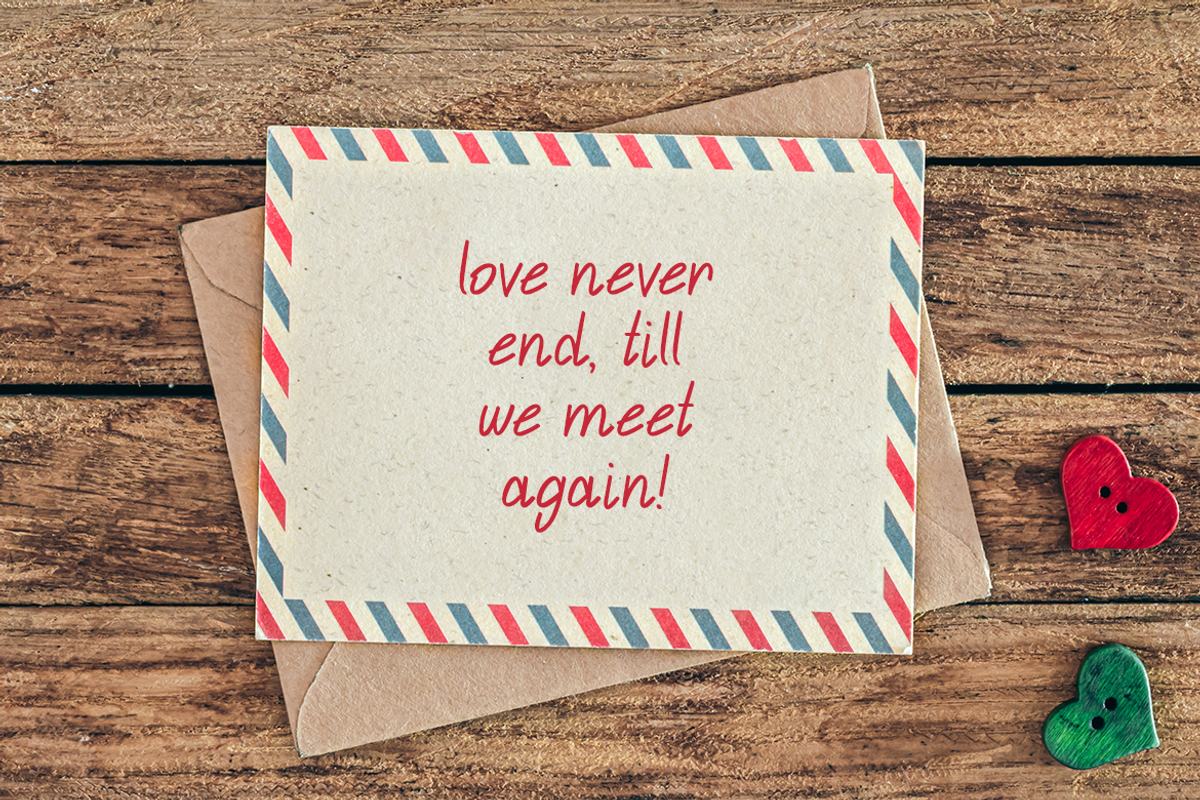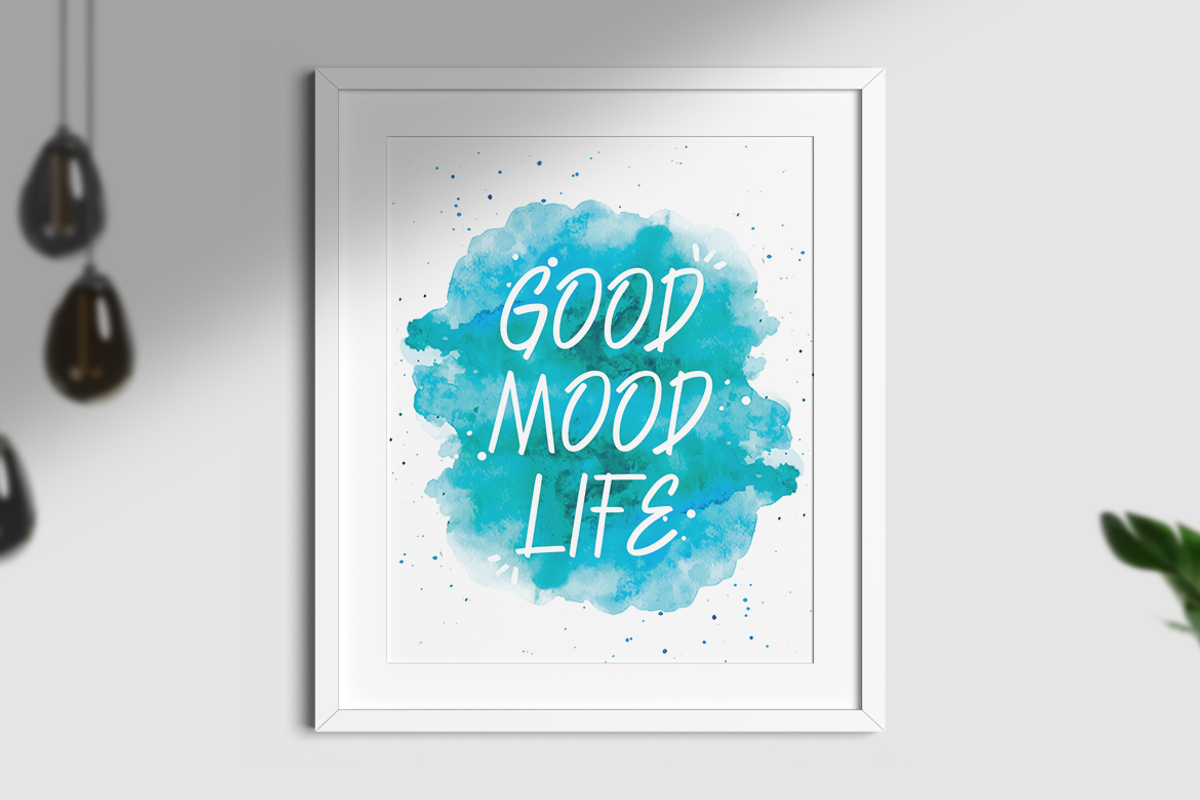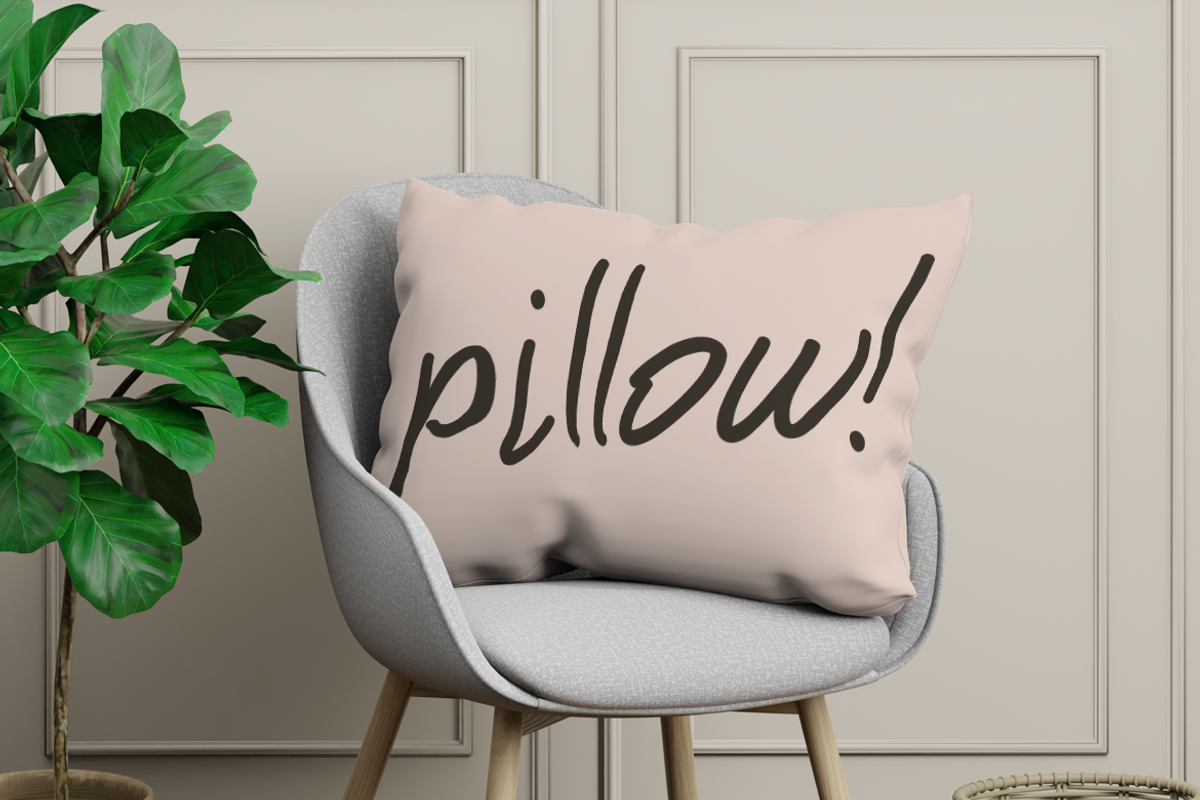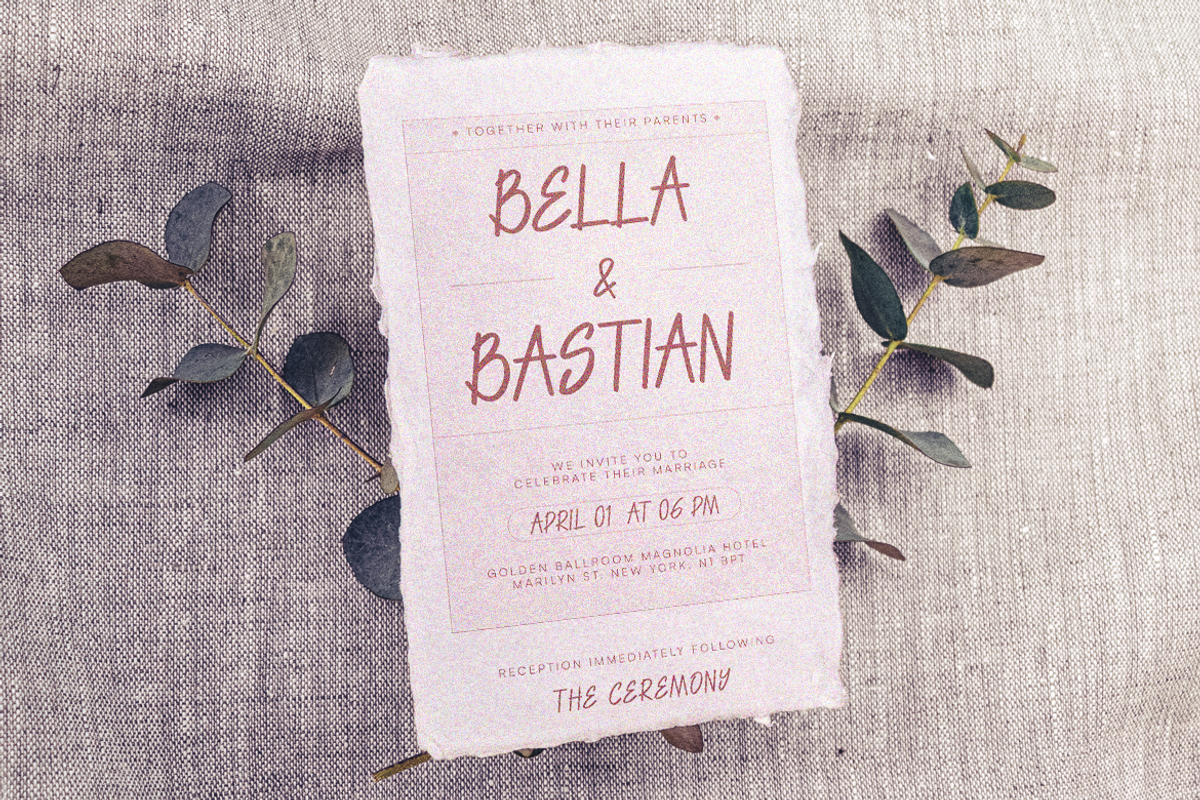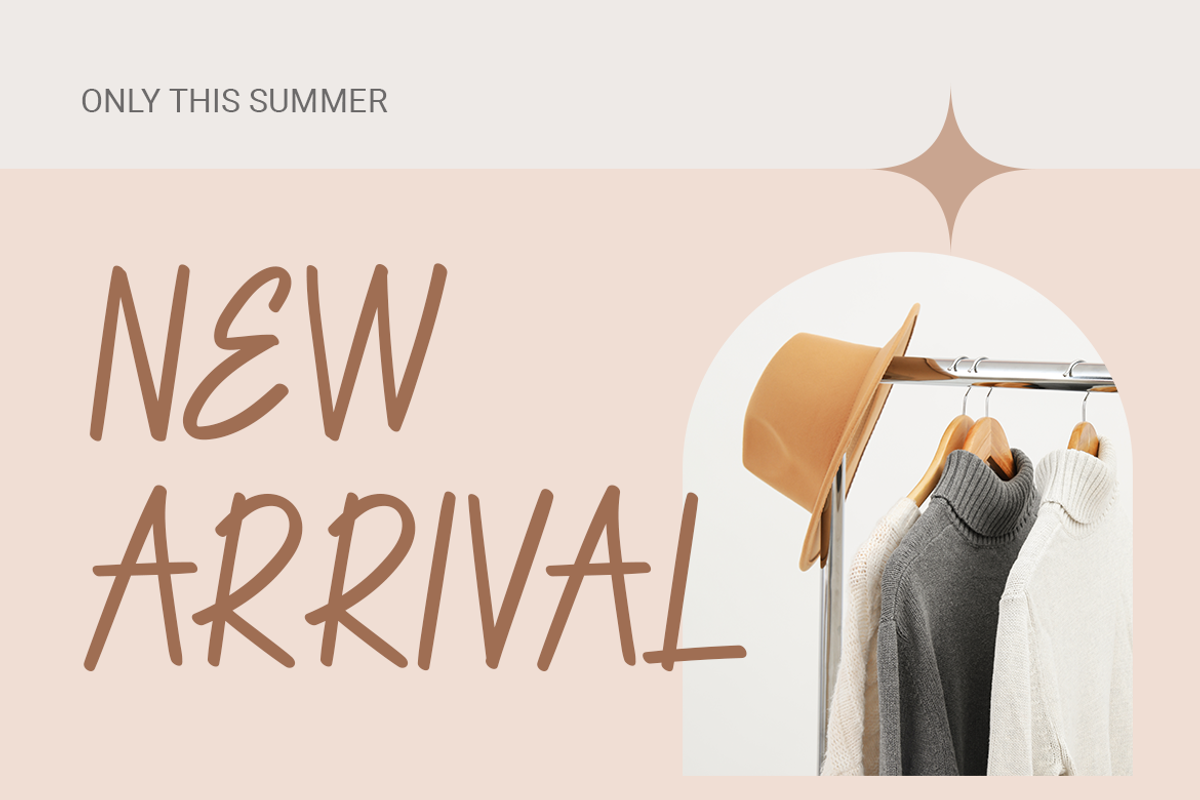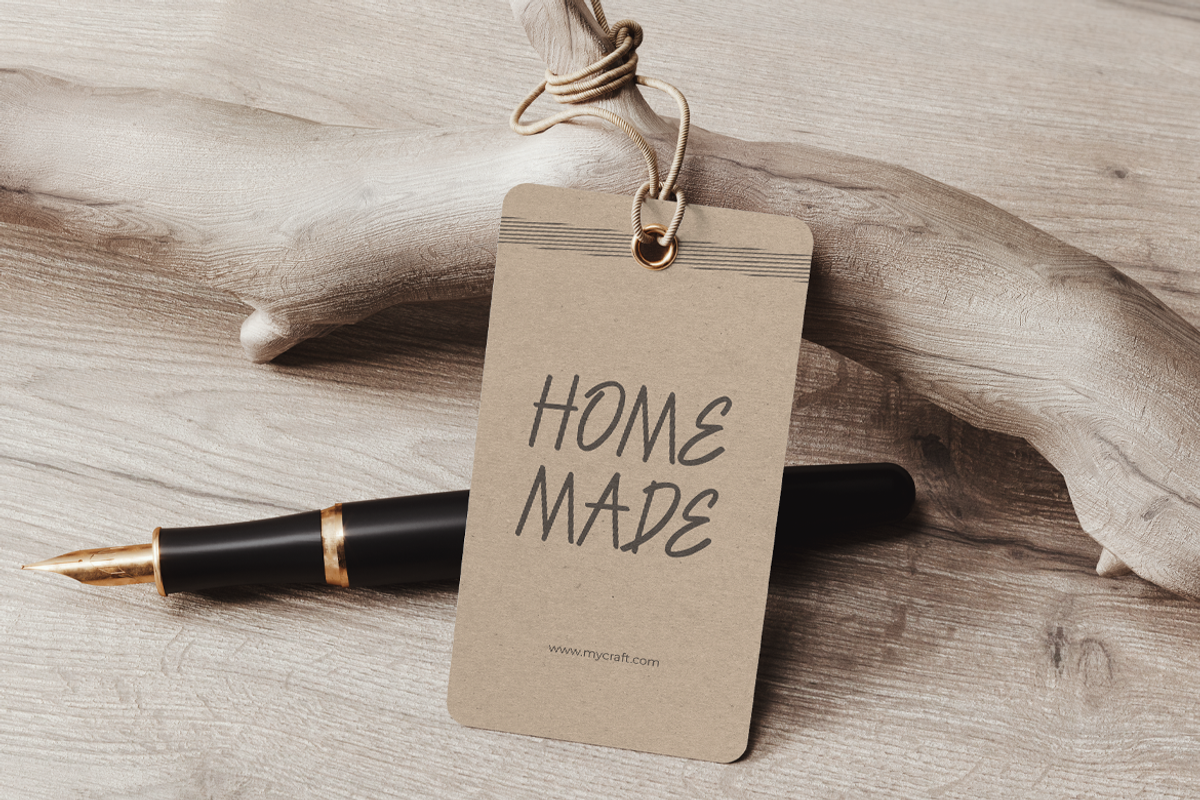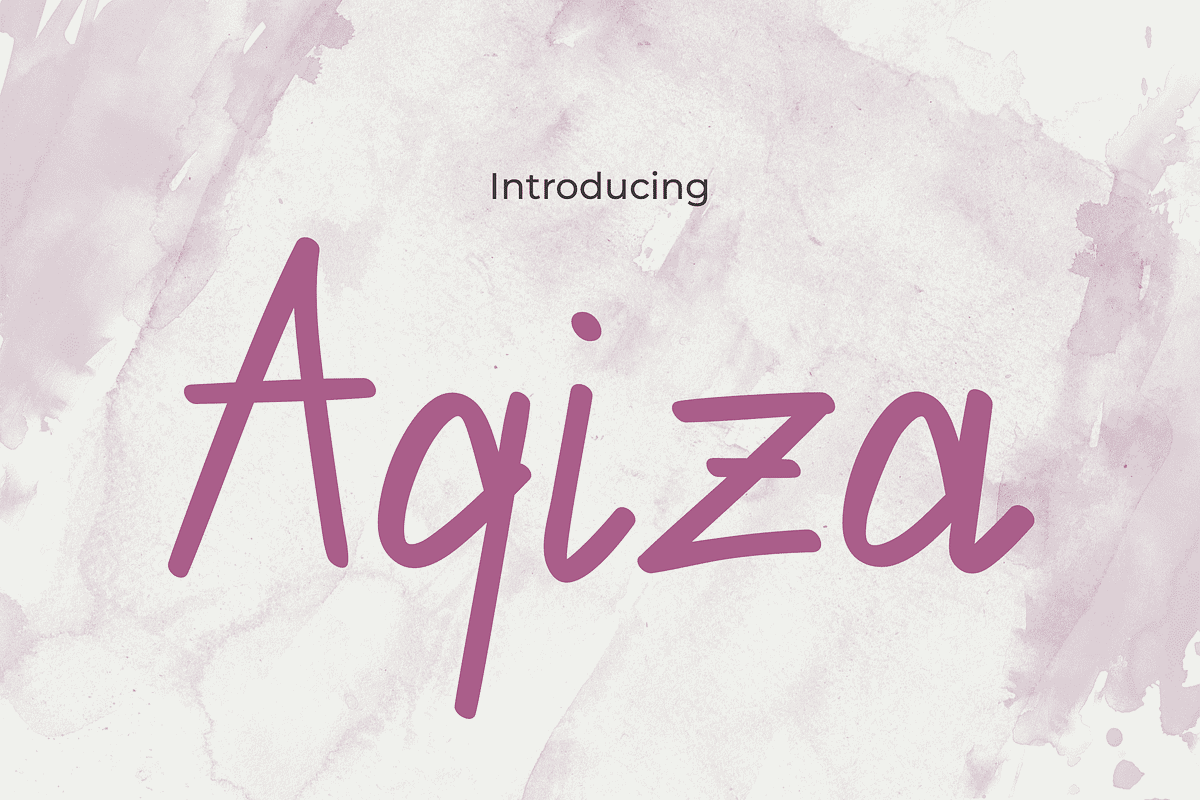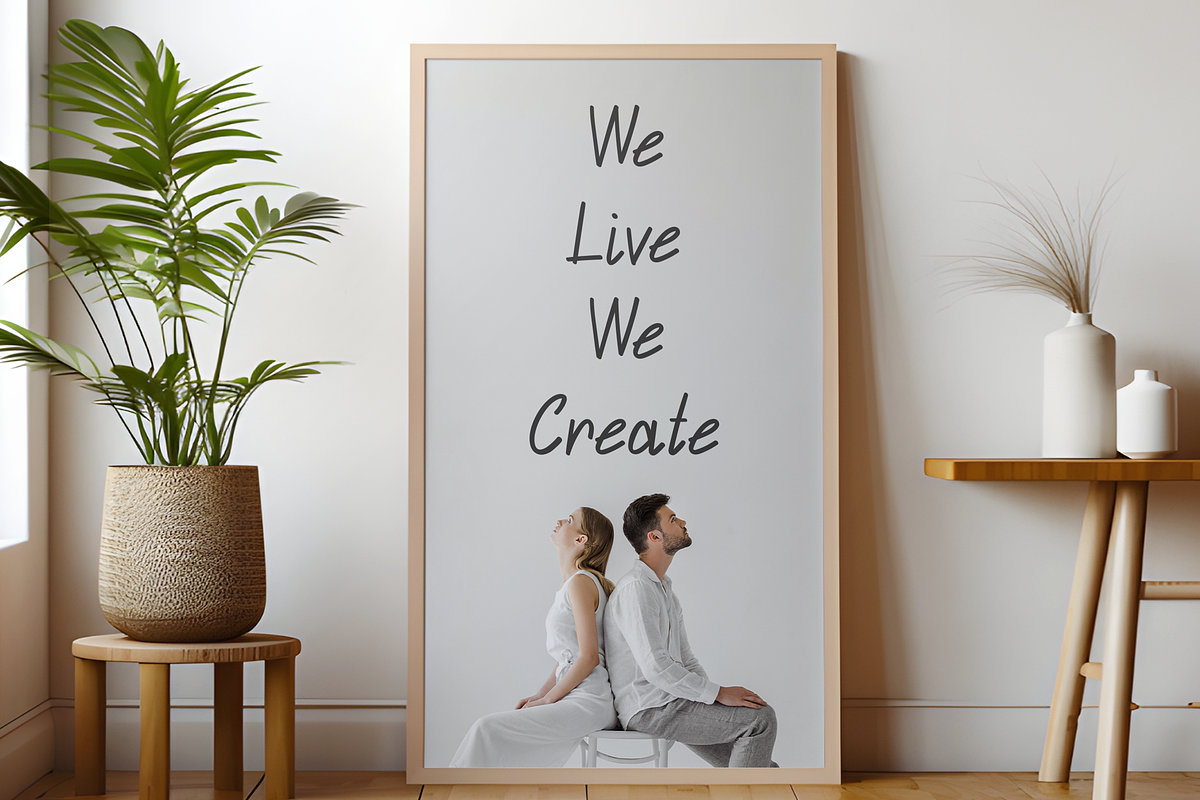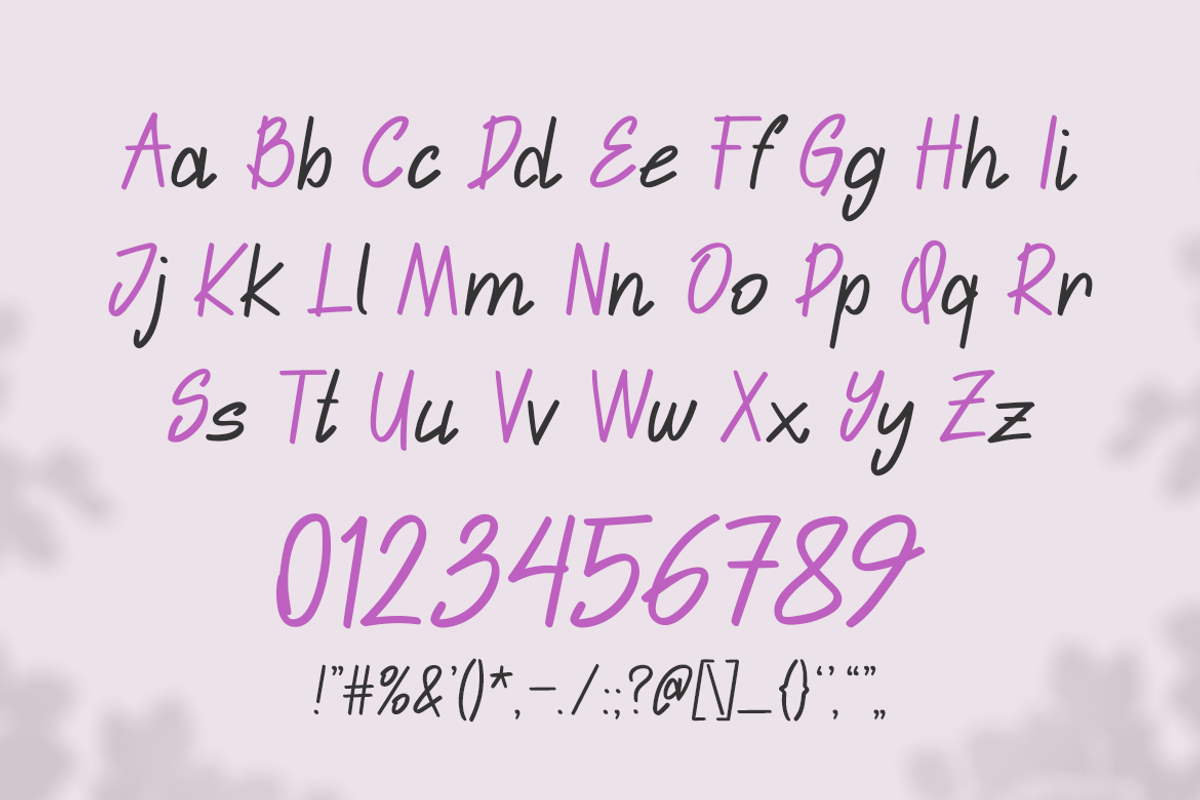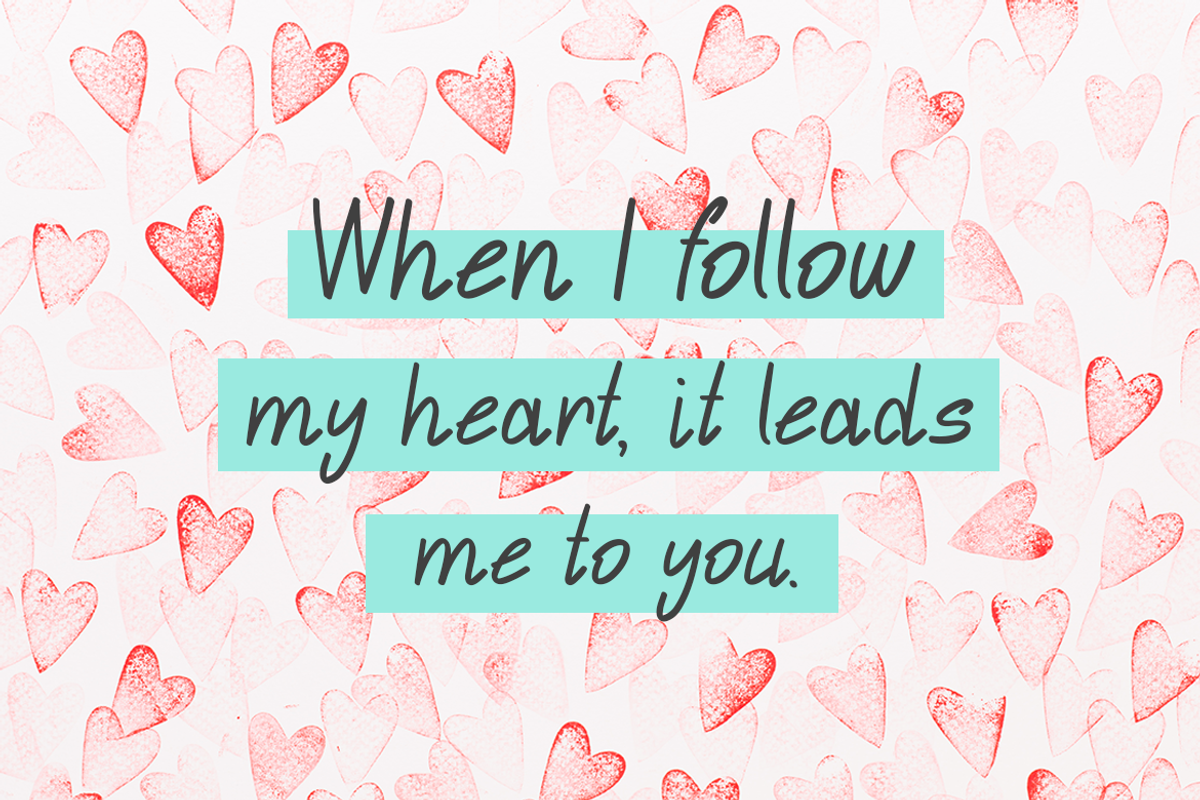
Aqiza
Aqiza Font – A Typeface of Feminine Charm
Introducing Aqiza Font, a charming and delightful typeface that encapsulates femininity and sweetness in every stroke. With its graceful curves and delicate lines, Aqiza Font exudes a sense of elegance and charm, making it the perfect choice for projects that aim to evoke a feminine and whimsical vibe. Whether you’re designing invitations for a bridal shower, creating branding materials for a boutique, or crafting social media graphics for a lifestyle blog, Aqiza Font adds a touch of sophistication and allure to any design.
Aqiza Font effortlessly captures the essence of femininity with its soft, flowing elements and gentle serifs. Each letter is meticulously crafted to convey a sense of grace and beauty, creating a visually appealing aesthetic that resonates with audiences. Whether used in print or digital media, Aqiza Font infuses a sense of sweetness and charm into your designs, making them stand out with an irresistible allure. Embrace the feminine sophistication of Bonita Font and elevate your projects with its enchanting appeal.